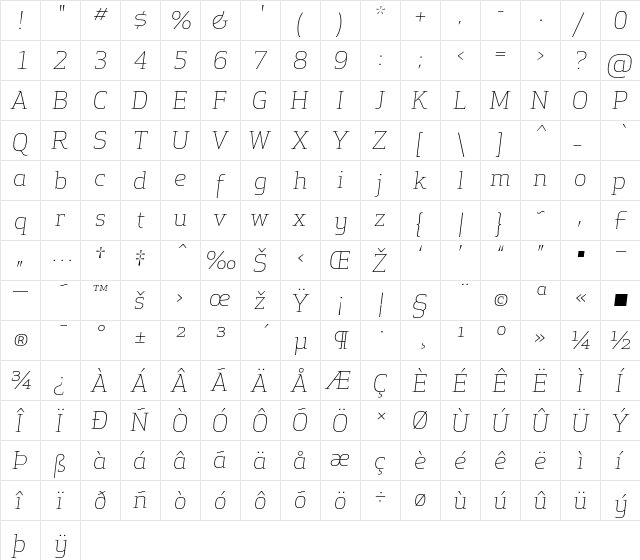
Apex Serif Light Italic Regular Font Preview
Design Context for Apex Serif Light Italic Typeface
Apex Serif Light Italic brings classic typographic sensibility to the table — its serifs and measured letterforms reflect centuries of print heritage. The slanted form adds forward momentum and visual energy. Its slender proportions lend an understated elegance to any composition.
Pro Tip: Set Apex Serif Light Italic at slightly larger body copy sizes than you would a regular-weight serif to compensate for its delicate stroke contrast.